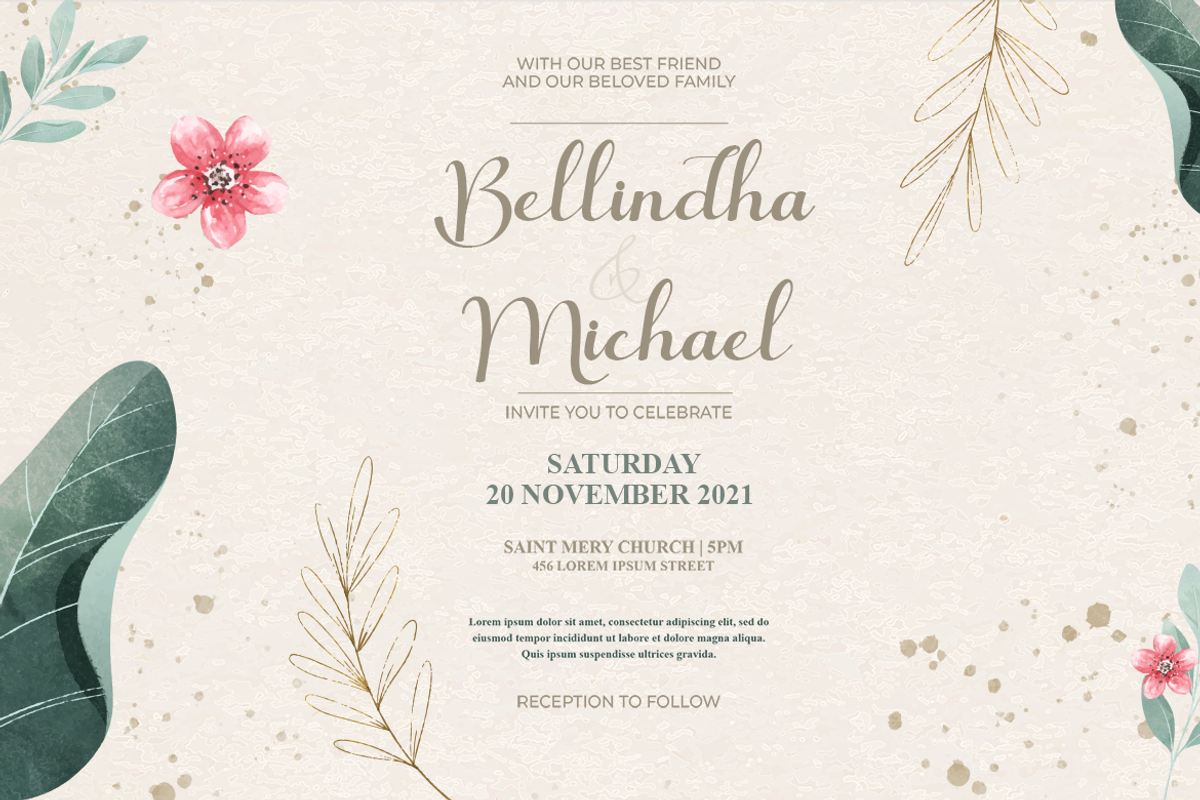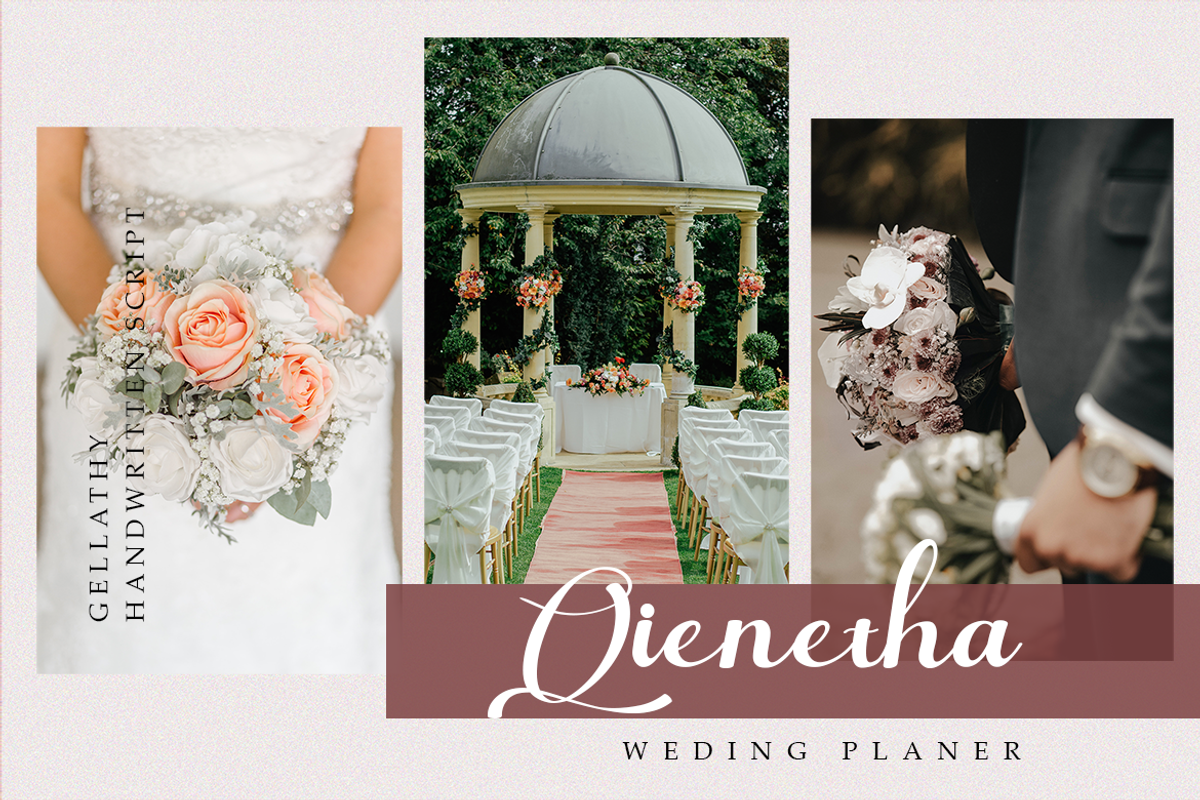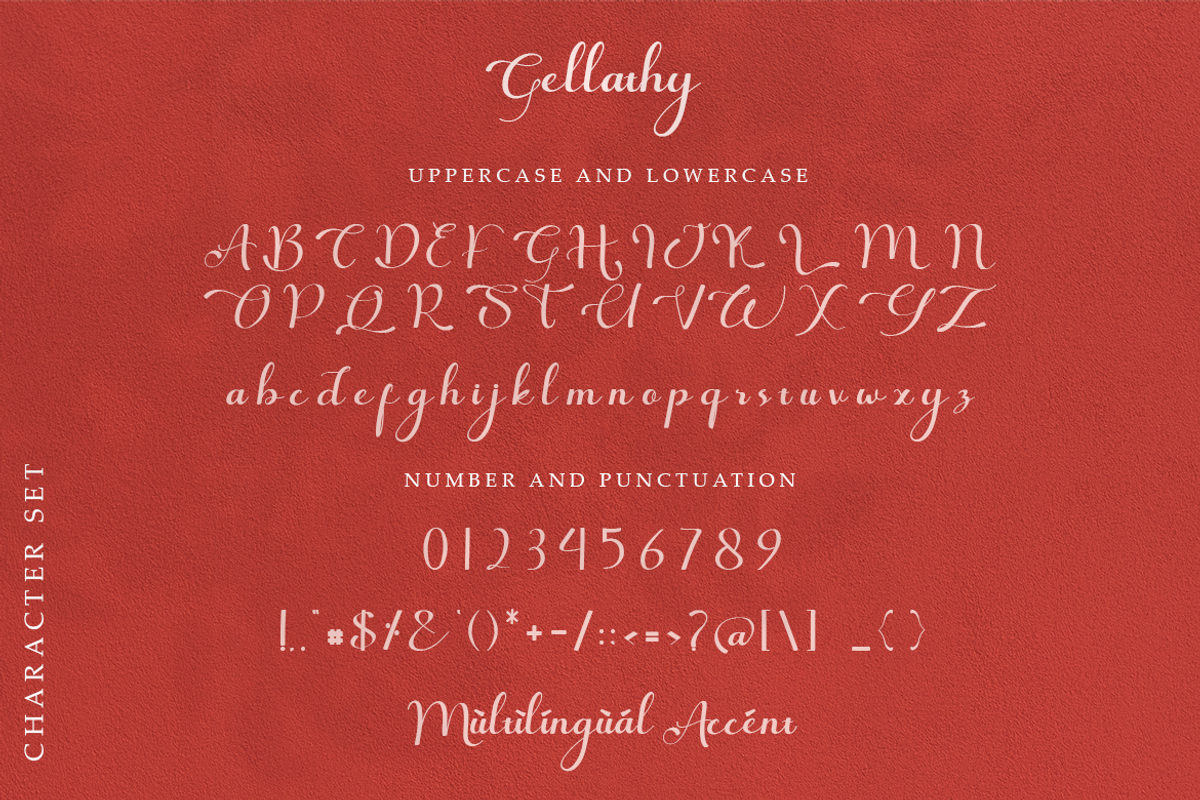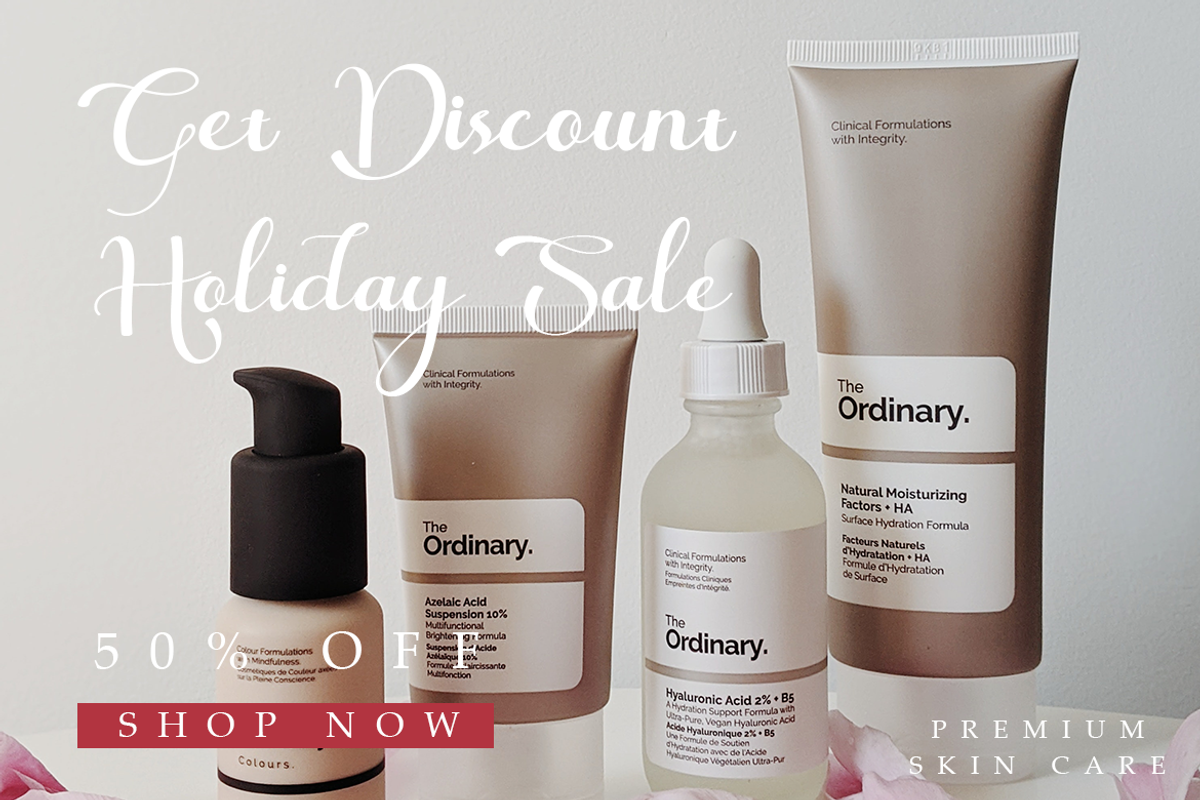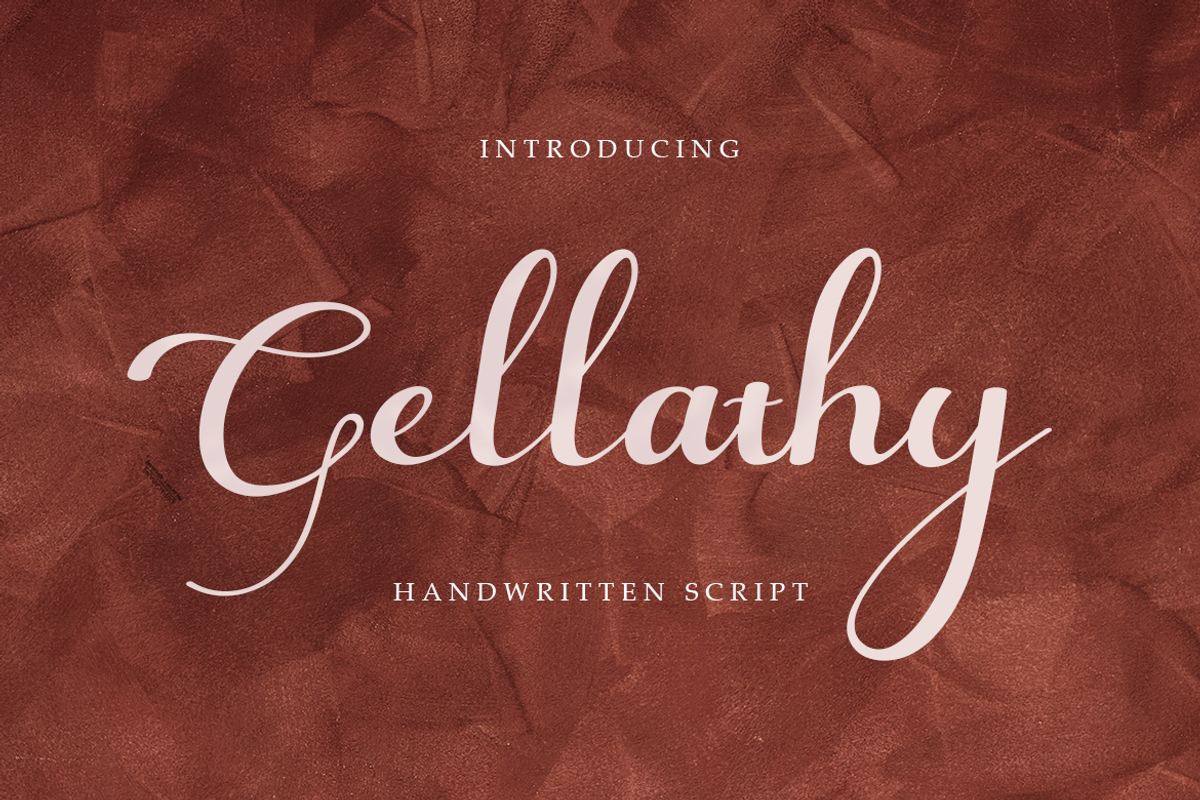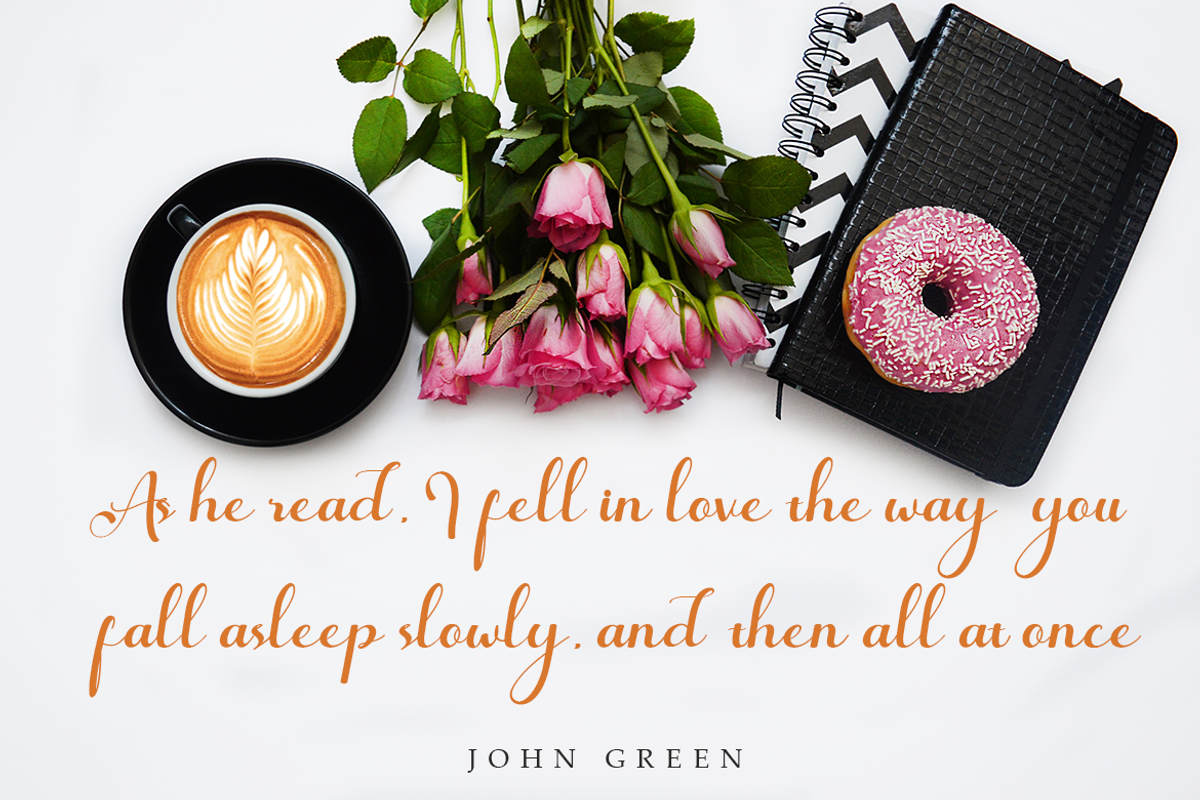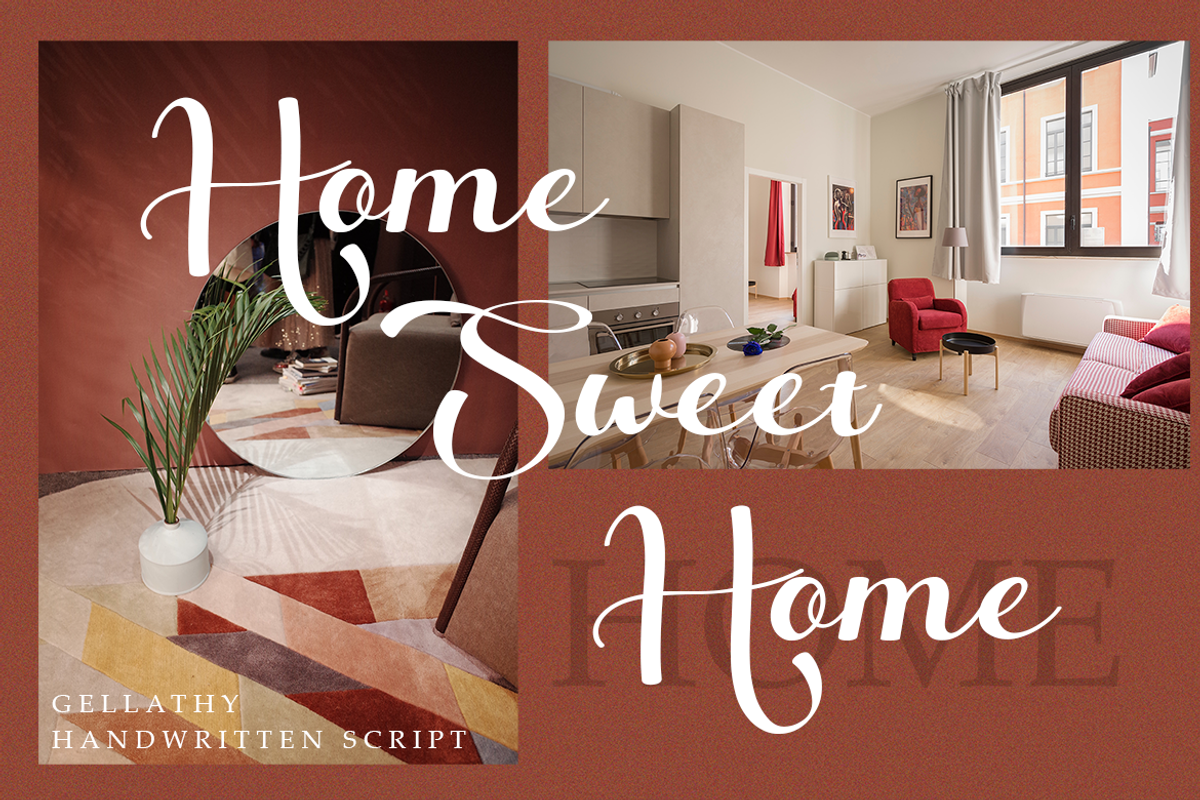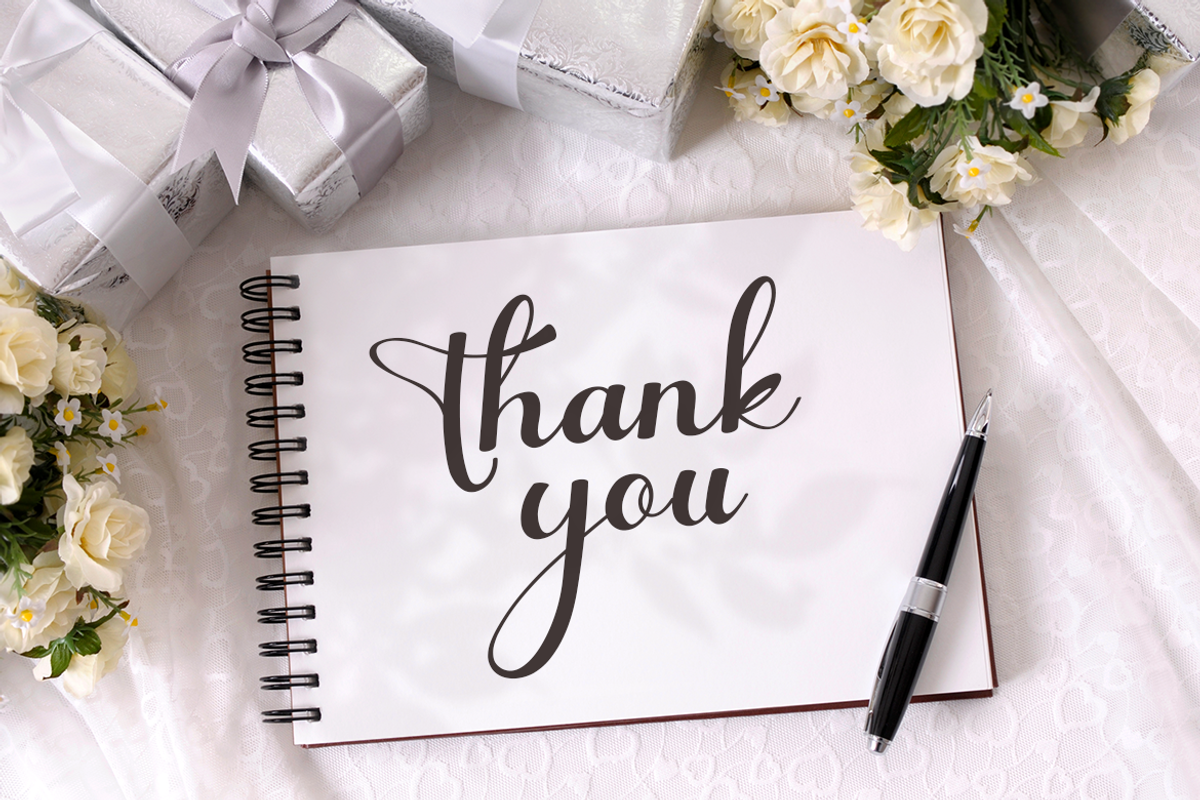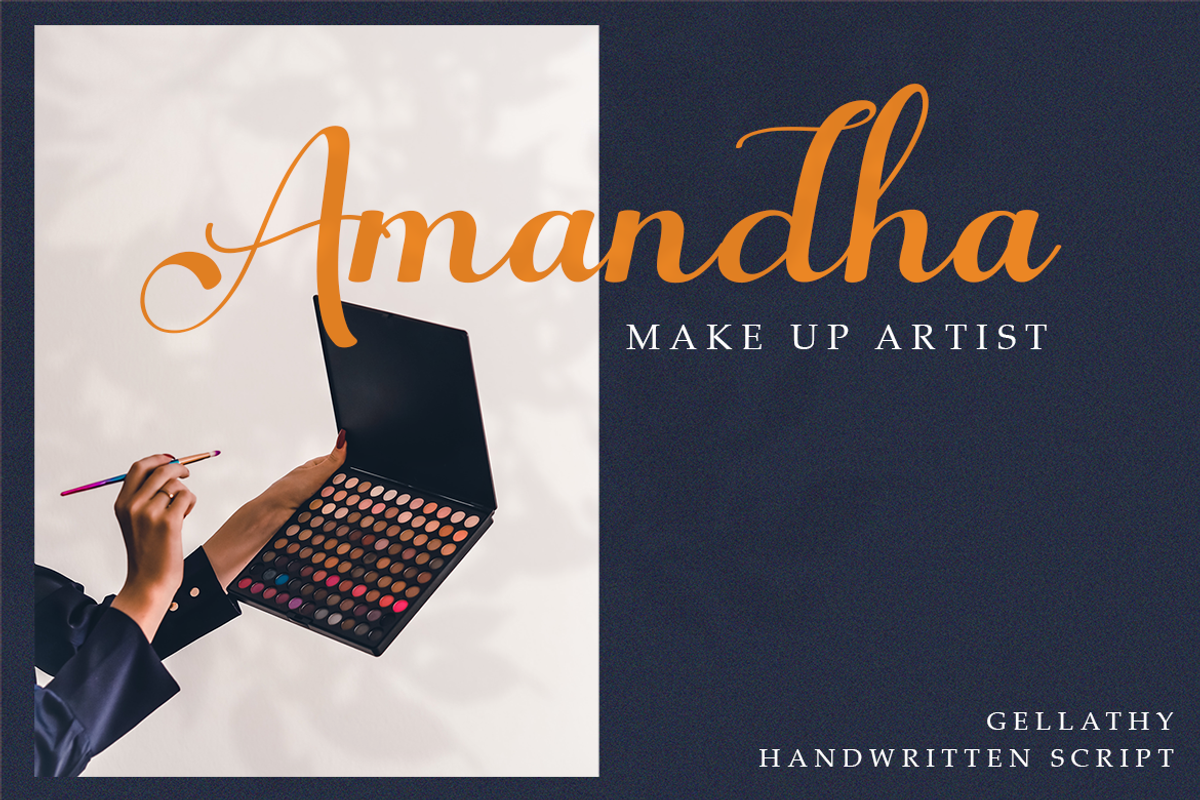
Gellathy Handwritten Script
Gellathy Handwritten Script is perfect for branding projects, logo, wedding designs, social media posts, advertisements, product packaging, product designs, label, photography, watermark, invitation, stationery and any projects that need handwriting taste.